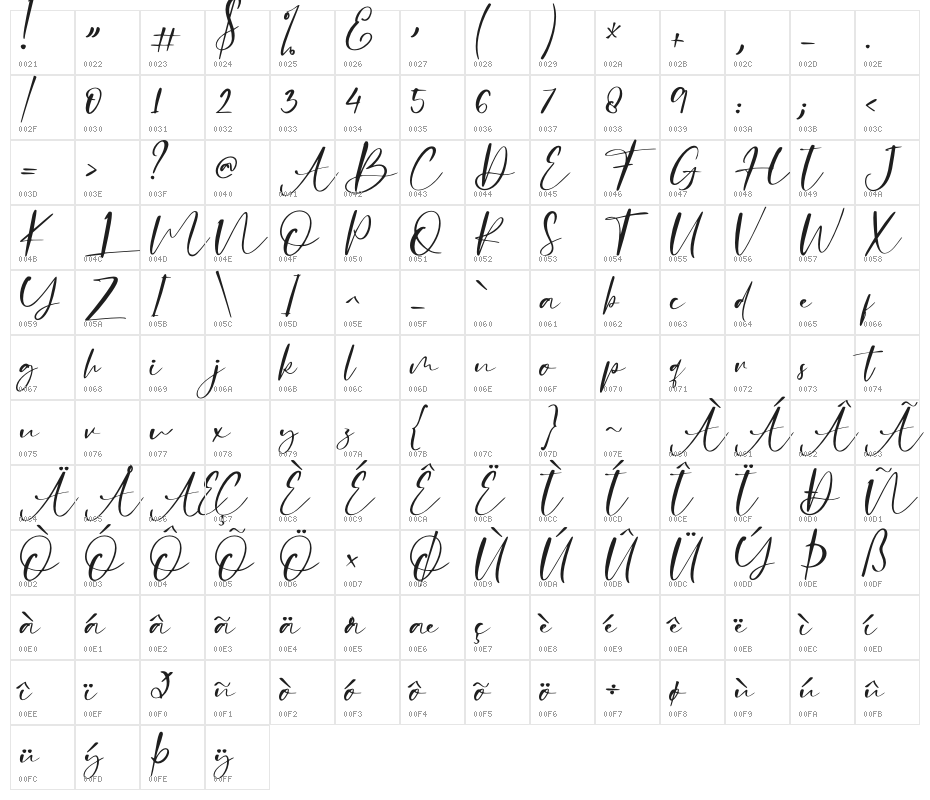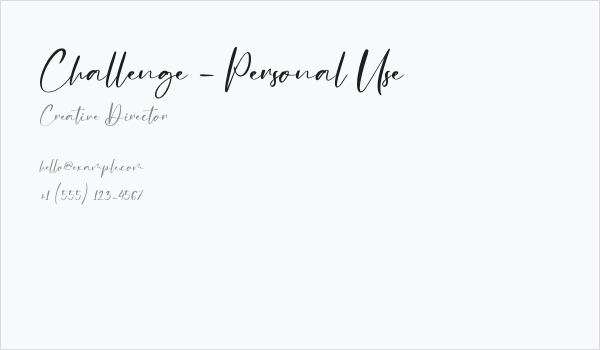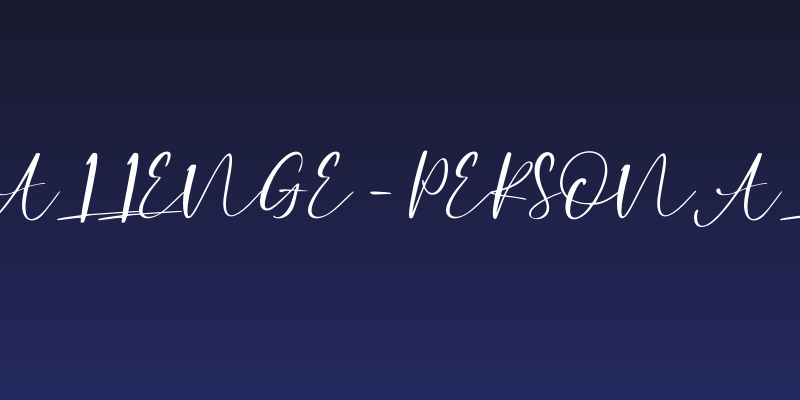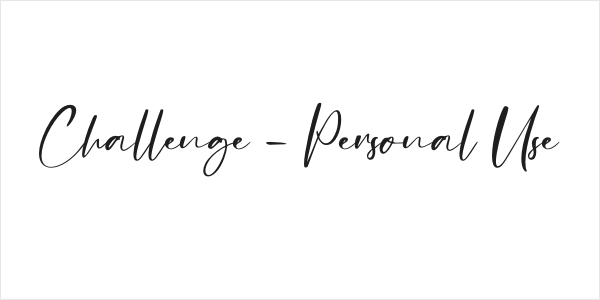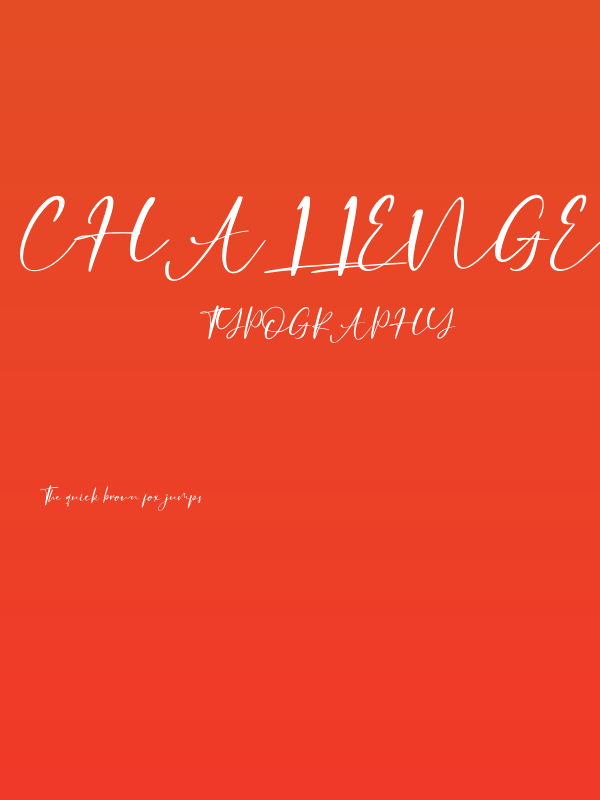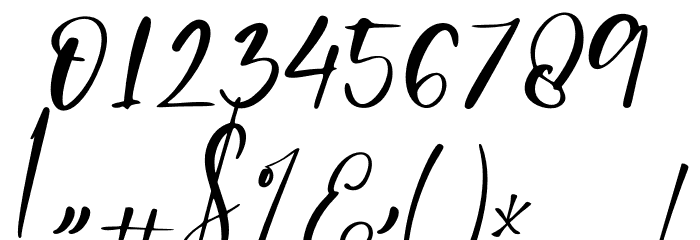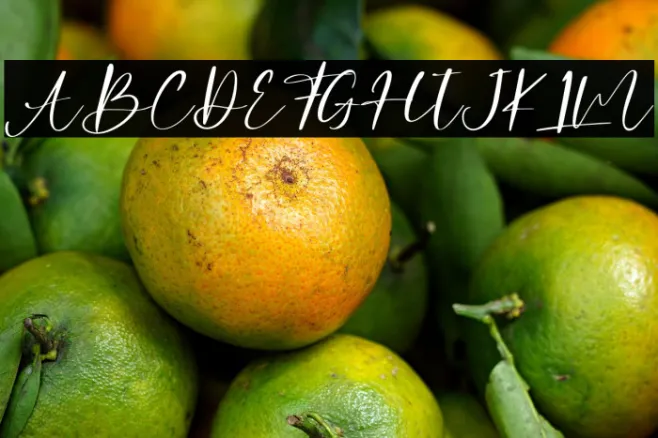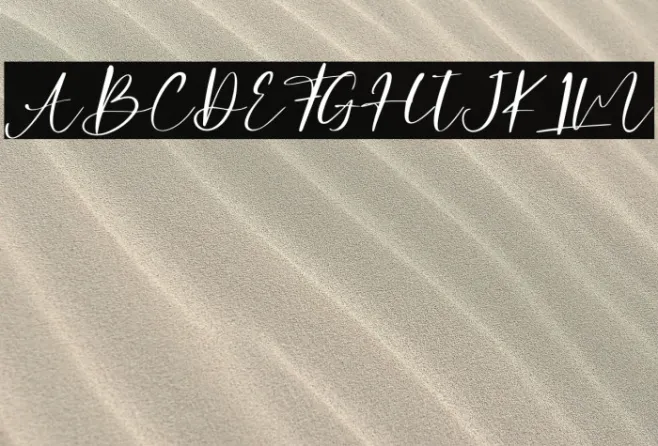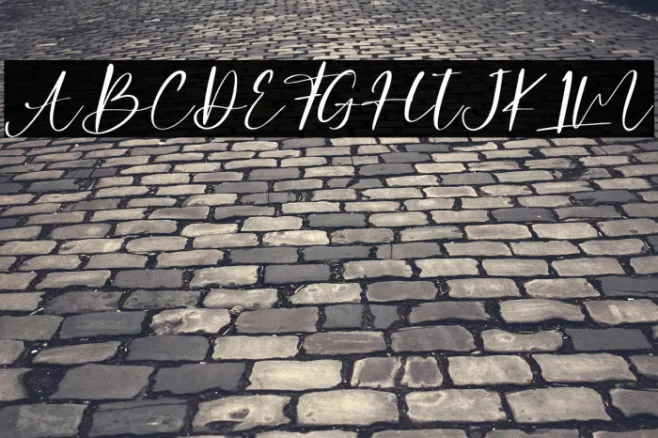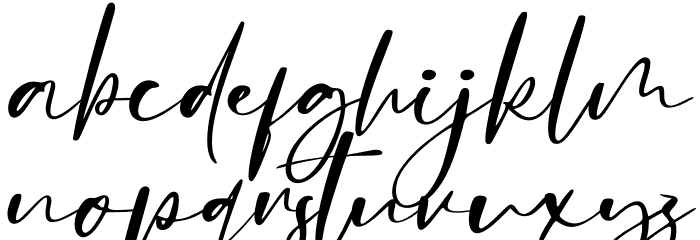
Challenge - Personal Use Font
Challenge - Personal Use Description
This font features a dynamic and fluid script style, characterized by its elegant, flowing lines and cursive letterforms. The uppercase letters are tall and slender, with a slight slant that adds a sense of motion and grace. The lowercase letters are more compact, with intricate loops and swashes that enhance the font's decorative appeal. The numerals are consistent with the overall style, maintaining the same fluidity and elegance. Special characters are creatively designed, integrating seamlessly with the rest of the font. This font's overall aesthetic is both sophisticated and playful, making it suitable for a variety of creative applications.